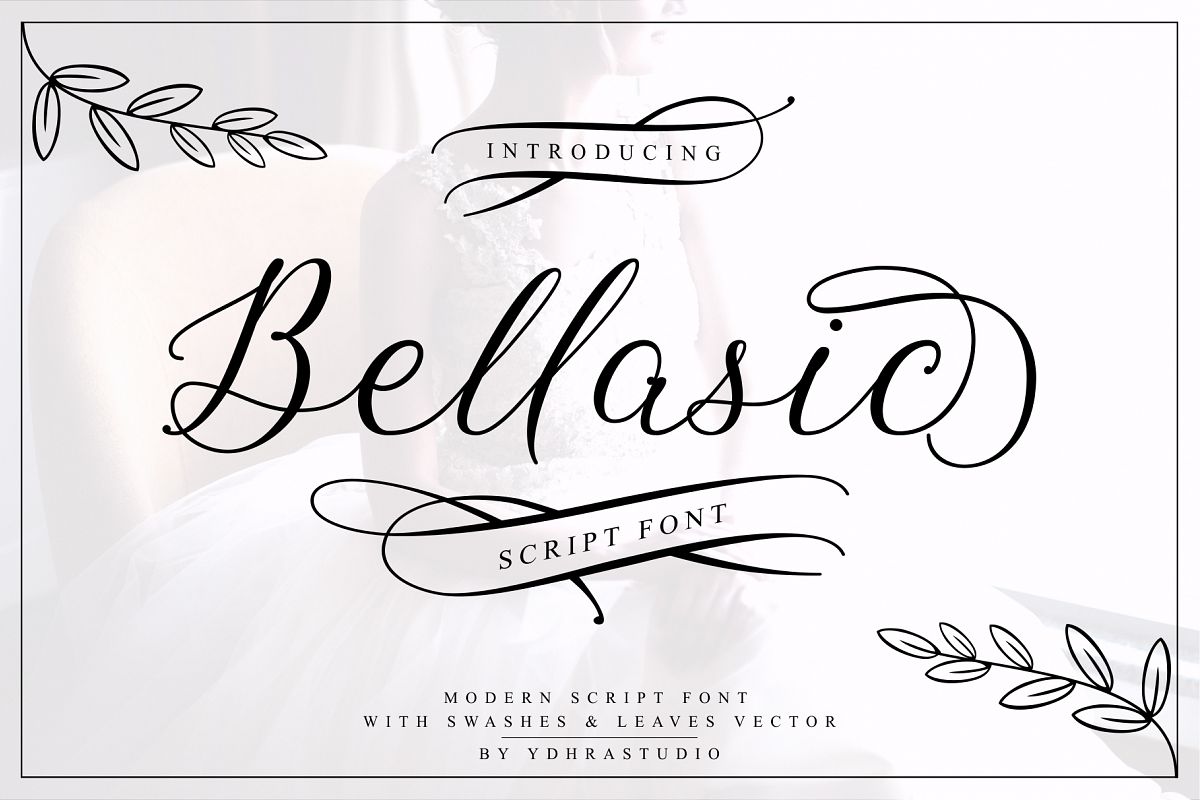
Bellasic
Introducing the elegant new Bellasic Script
Font
! For those of you who are needing a touch of elegance and modernity
for your designs, this font was created for you!
Bellasic
is
great for Invitations, Greeting Cards, Posters, Name Card, Quotes, Blog Header,
Branding, Logo, Fashion, Apparel, Letter, Magazine, Advertising Design, Stationery and more!
Bellasic Features :
- Upper and Lowercase Standard Characters, Punctuation,
Numerals
- OpenType features and includes ending swashes, alternate
swash characters for most lowercase letters, multiple ampersans (&), and ligatures
- Bonus
Swashes and Leaves
- PUA Encoded Characters
- Includes a range of multilingual characters.
Mix and match the alternate characters to add an attractive
message to your design.